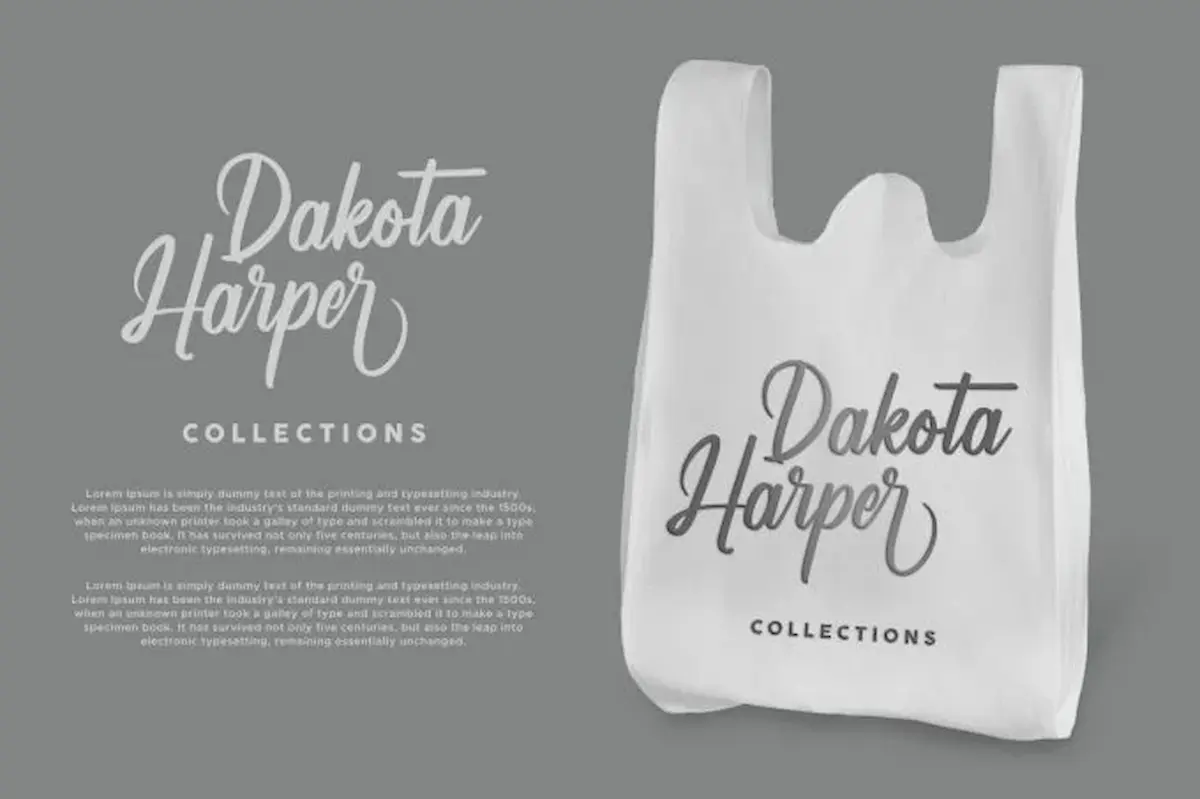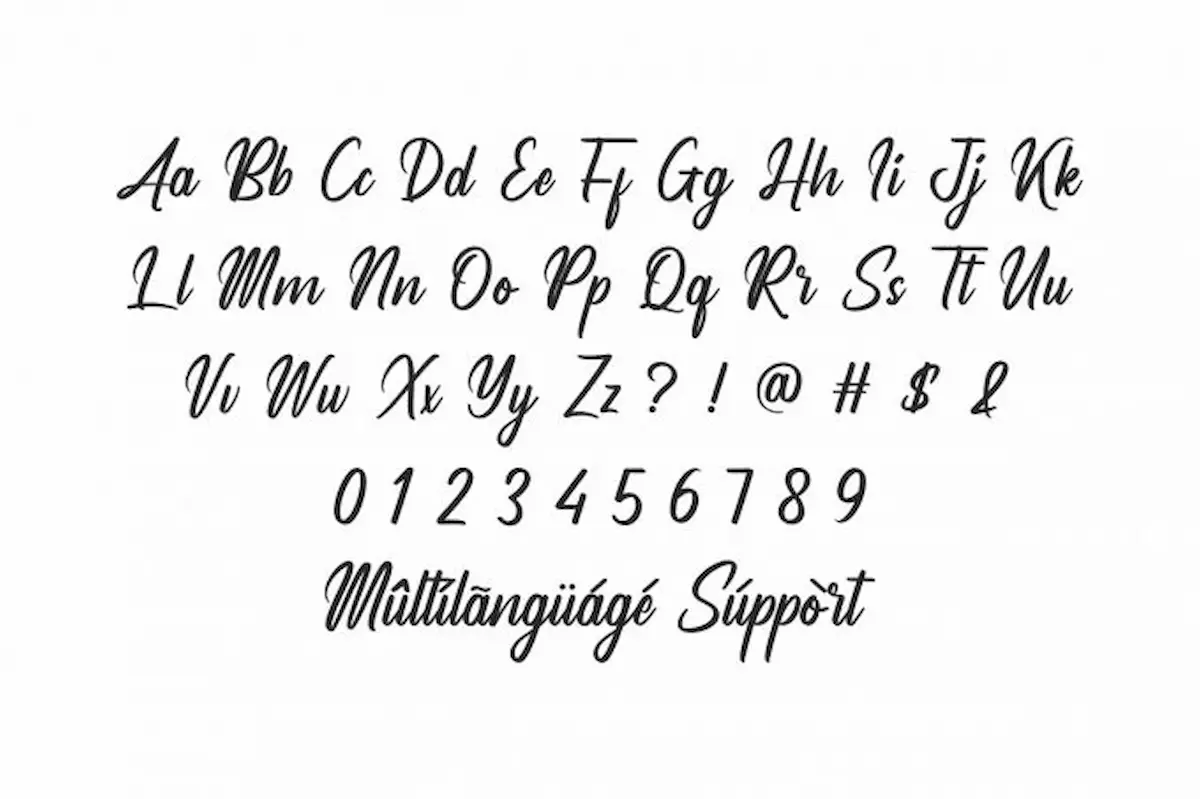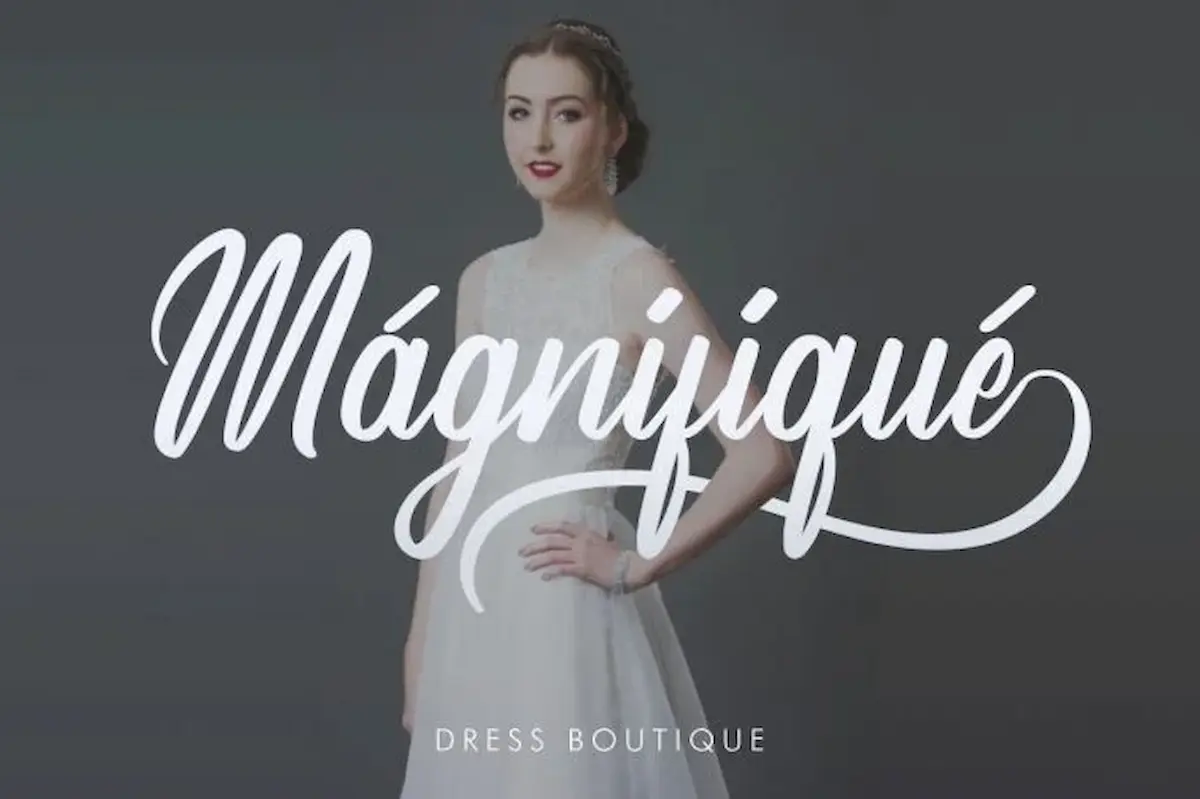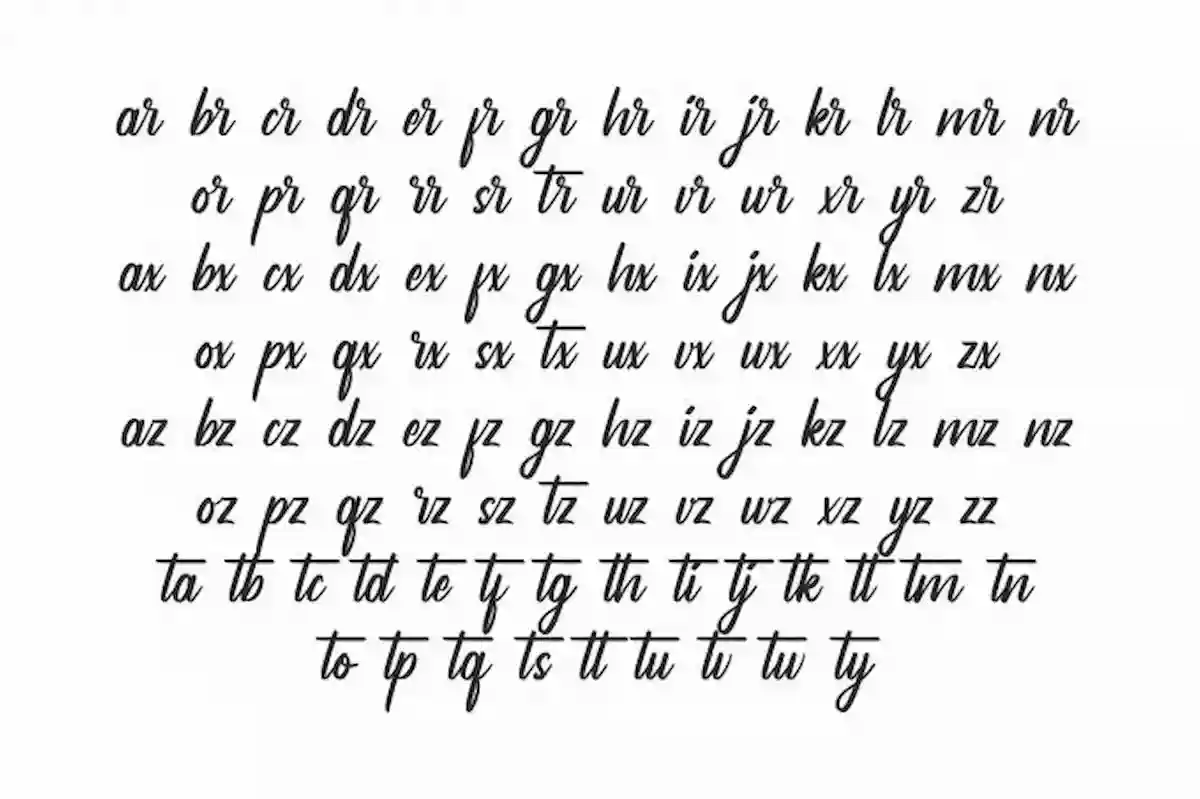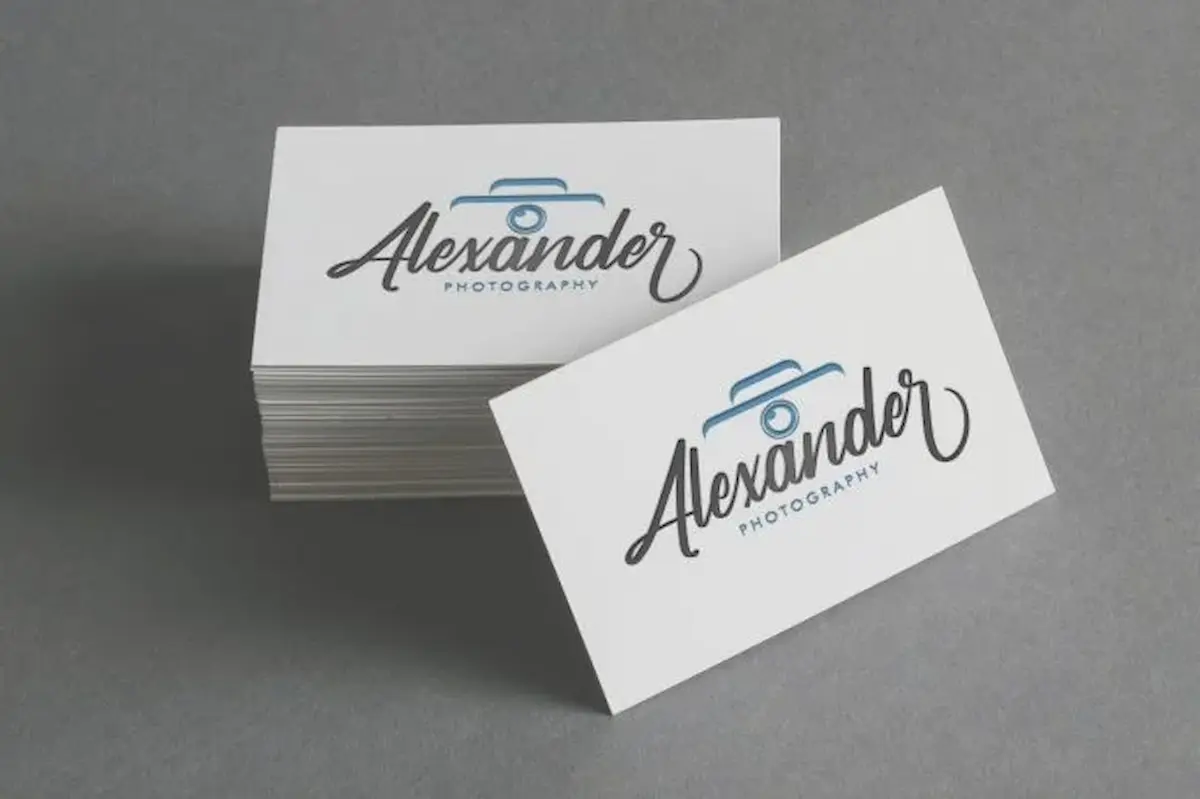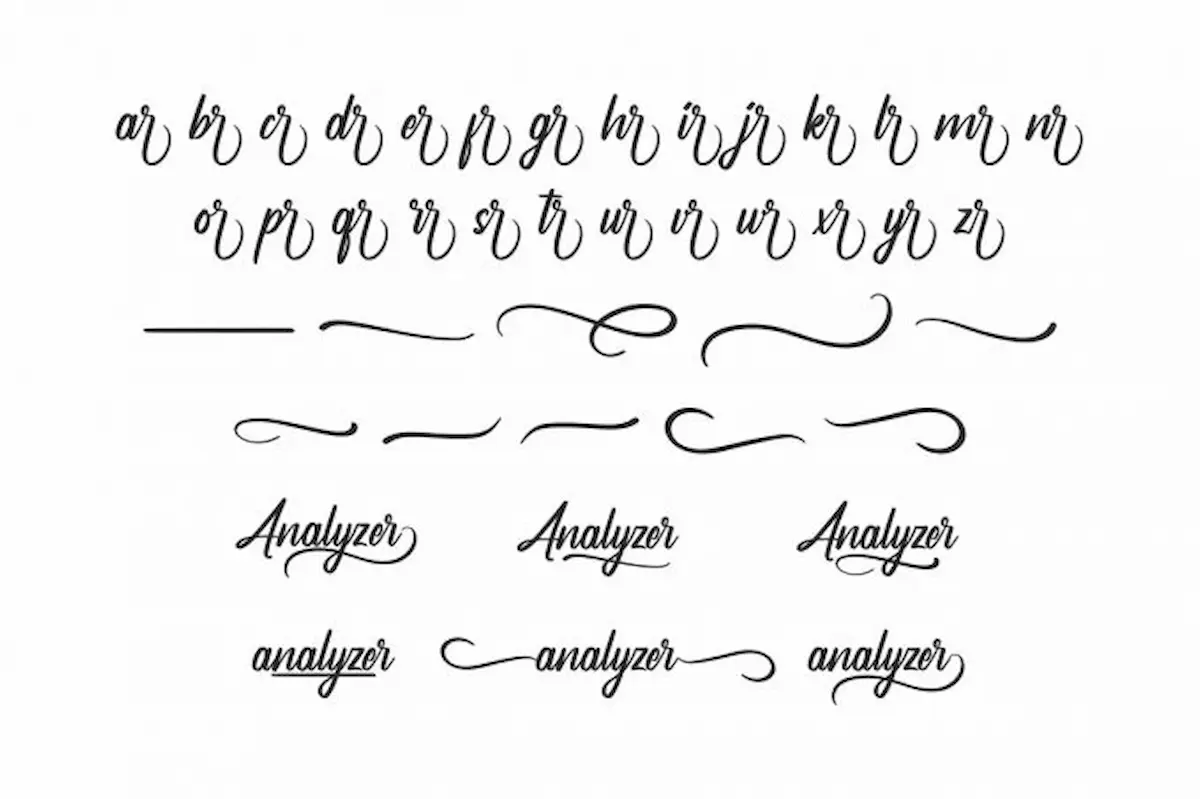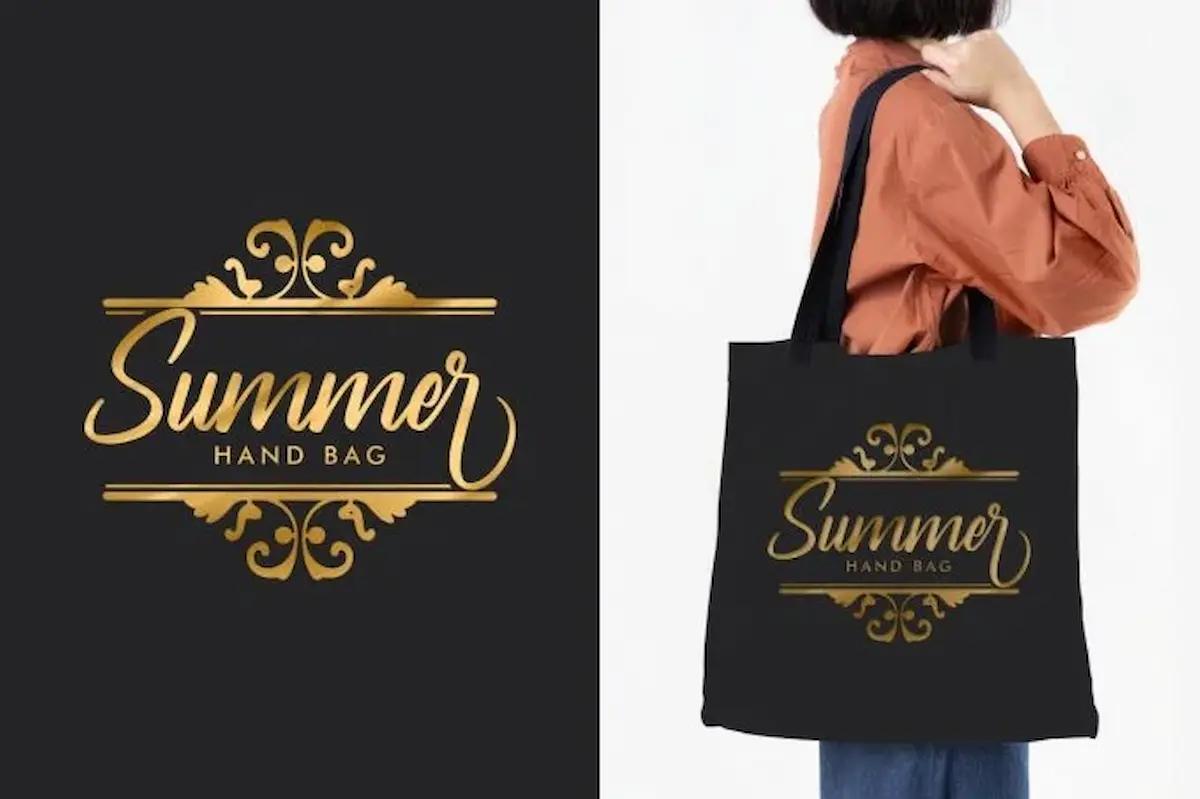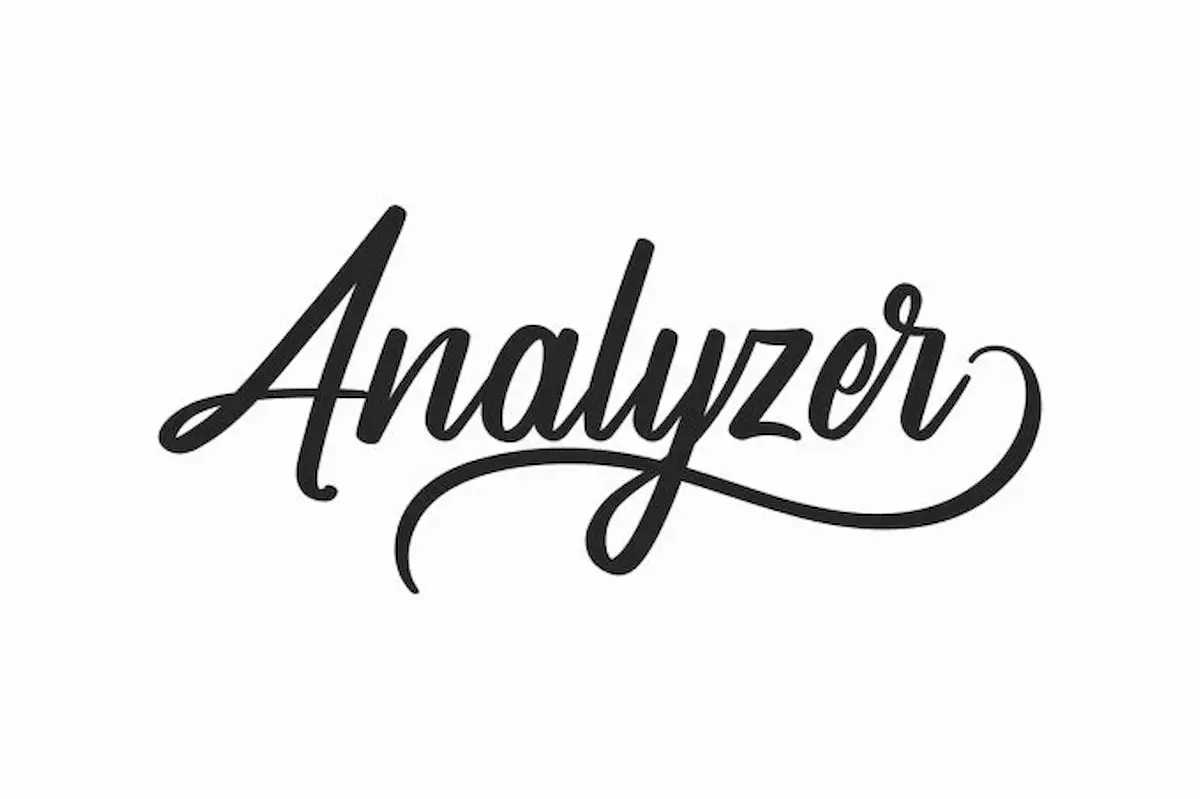
Analyzer Calligraphy Font is a brush calligraphy font. Made in Indonesia 2020 by NihStudio InHouse Font Designer : Widiyanti and Suci. On the package you will get :
Analyzer will be awesome for any projects (require extended license) including : branding, logo, stationery, business card, signage, flyer, brochure etc. The theme style of the font is elegant, luxury, glamour, gold, vintage, stylish, sophisticated and classic brush style. The font will be match for this typeface: wedding, events, real estate, architect, law firm, florist, gardening, makeup artist, travel, hotel, musician etc.